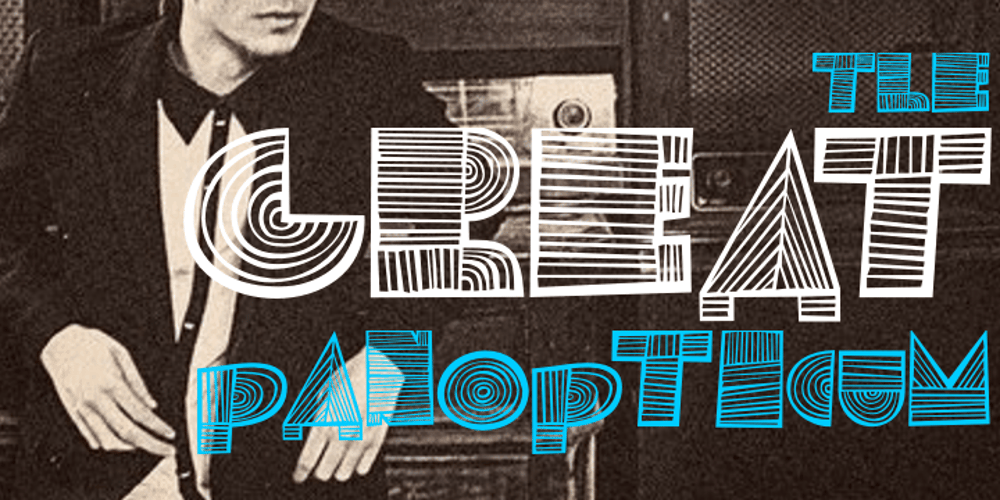
Panopticum Font Family was designed by Vladislav Ivanov and published by Vladislav Ivanov. Panopticum contains 3 styles and family package options. Panopticum is a Vladislav Ivanov font family with 3 styles- Panopticum,Panopticum Re and Panopticum Broken. Panopticum is a custom font which is applicable for any type of graphic design – web, print, motion graphics, etc. and perfect for t-shirts and logos.